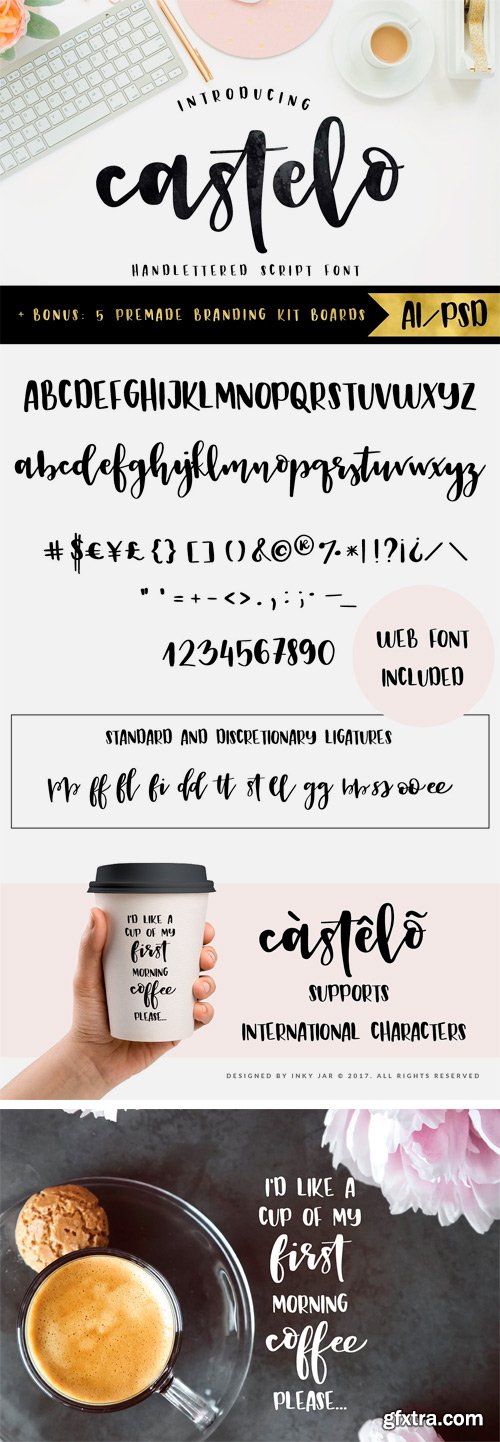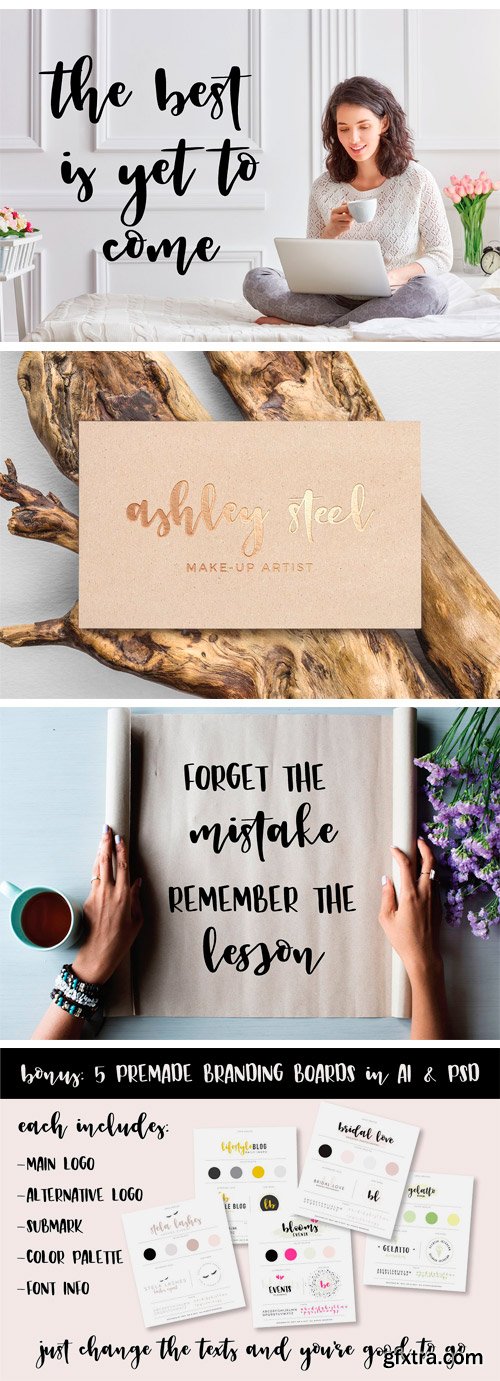
Meet Castelo Script - thick, hand lettered calligraphy font and pack of 5 premade branding kits . You can use it for branding your business or your clients, stationery, wedding invitations, posters, quotes, Instagram posts, product design, etc. I provided 5 remade branding kit templates which are very easy to customize - literally retype the texts and you're good to go!